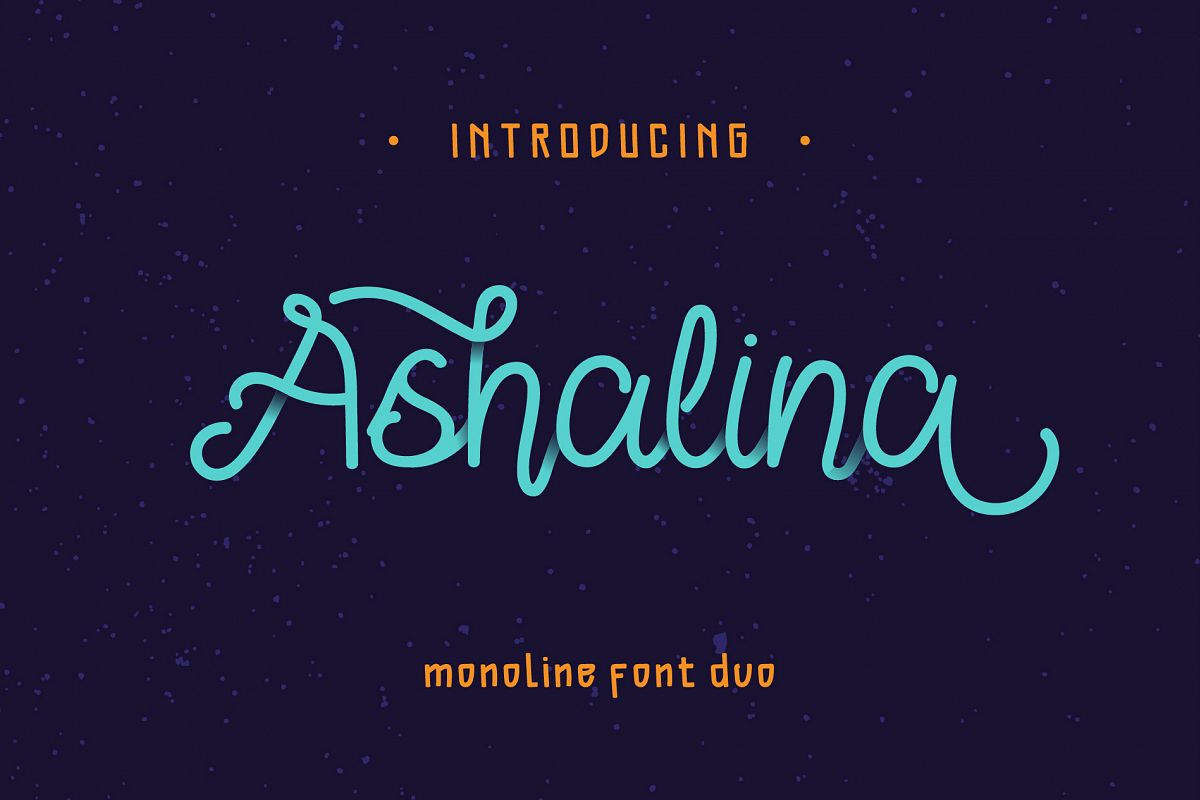
Ashalina Duo Font
Introduce : A new monoline script font named Ashalina, also a hand-drawn font named Gazala.
This font duo is dedicated to my baby girl Ashalina El Gazala who was born a week ago.
This fonts feature :
• Number
• Stylistic Characters